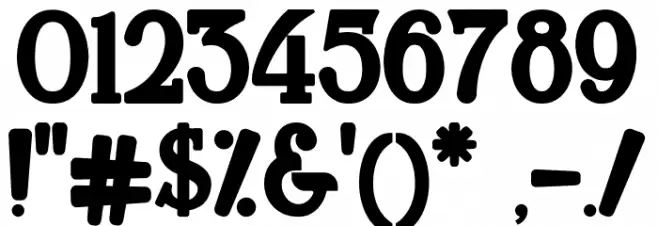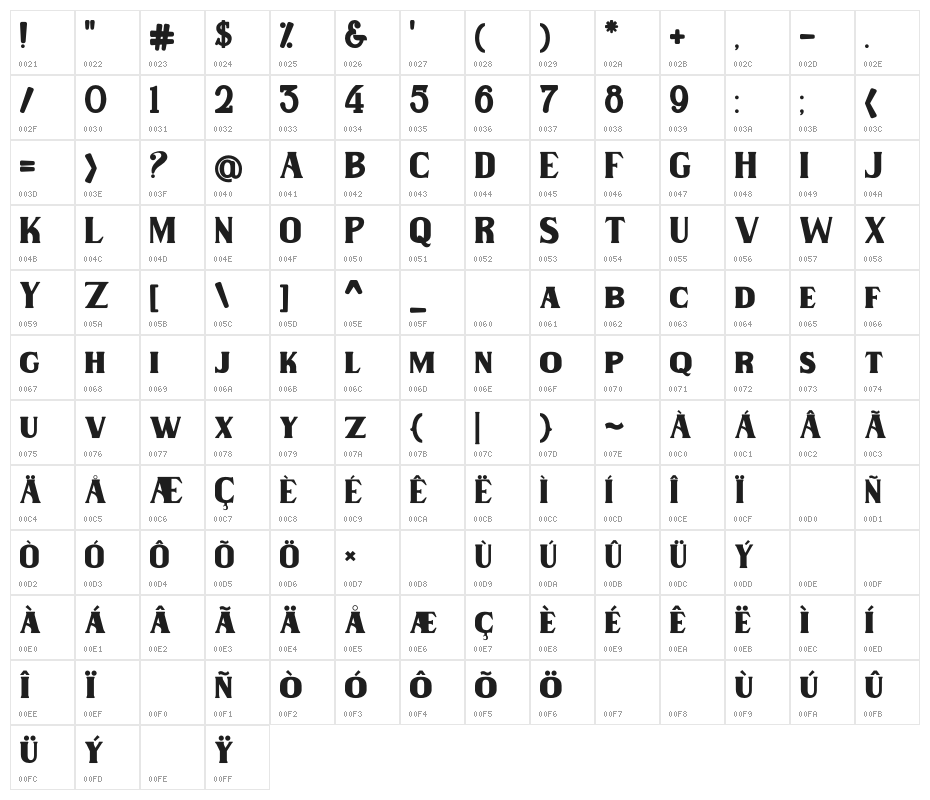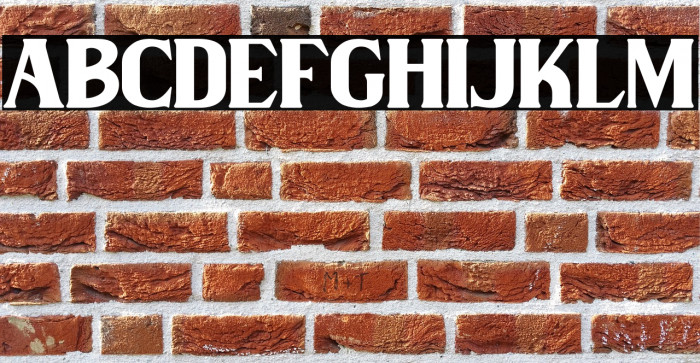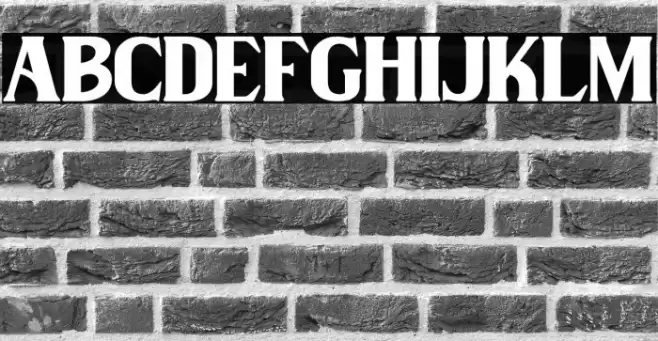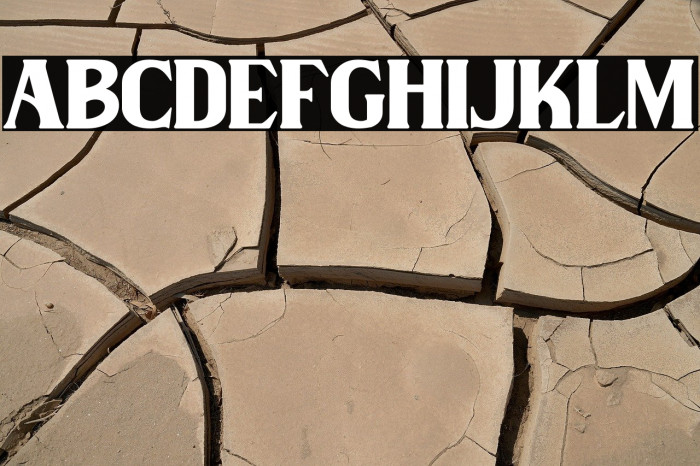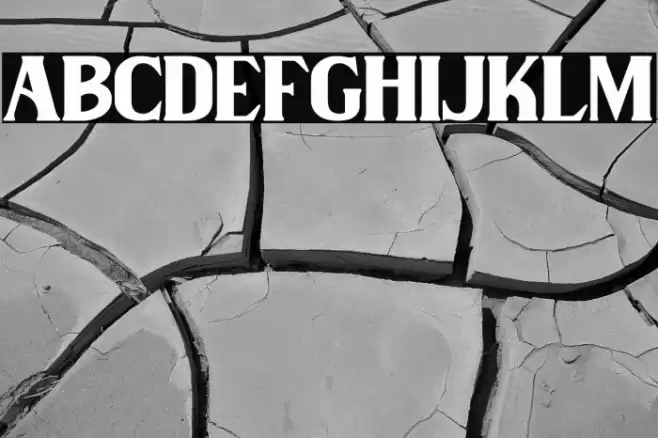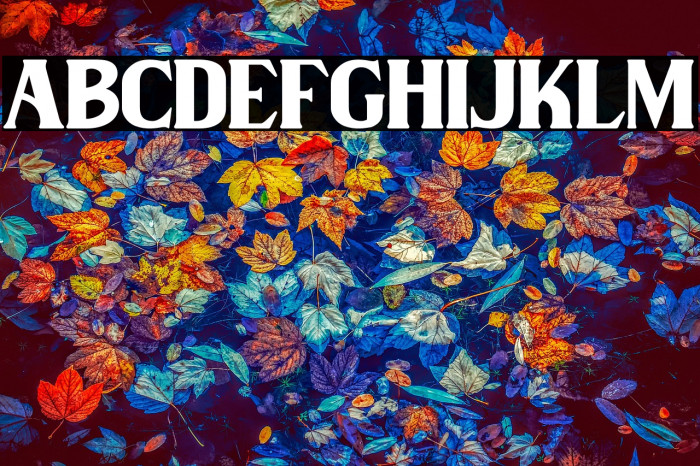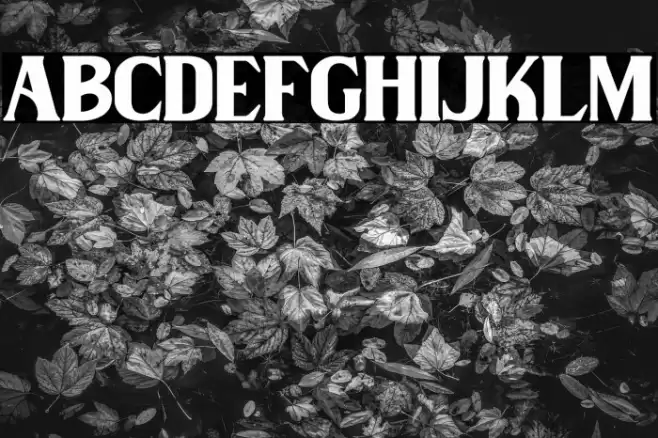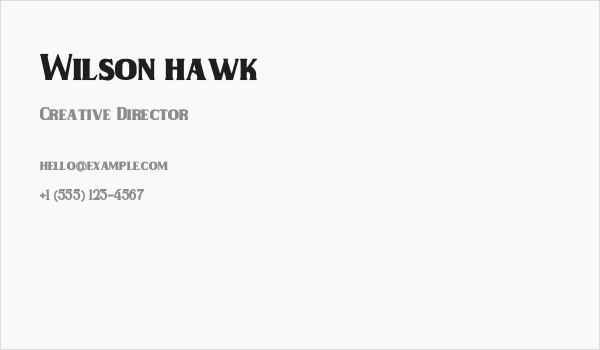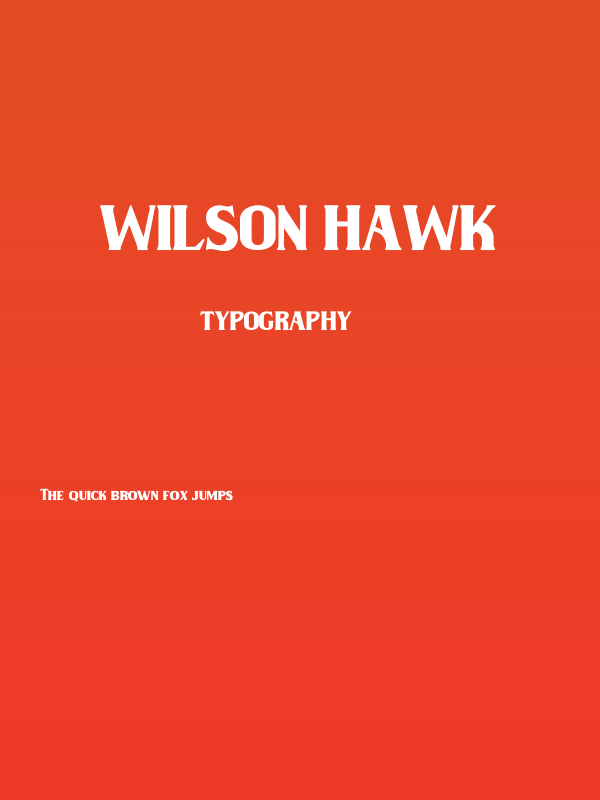
Wilson hawk Font
Wilson hawk Description
This font features bold, dramatic strokes with a strong presence, making it ideal for impactful designs. The characters exhibit a unique blend of sharp angles and smooth curves, giving it a distinctive and memorable appearance. The uppercase letters are particularly striking, with a sense of authority and elegance. The numerals and special characters maintain the same boldness, ensuring consistency across all uses. This font's design is both modern and timeless, suitable for a variety of creative projects.
| Proposed Projects | Ideal for branding, poster design, headlines, and any project requiring a strong visual impact. |